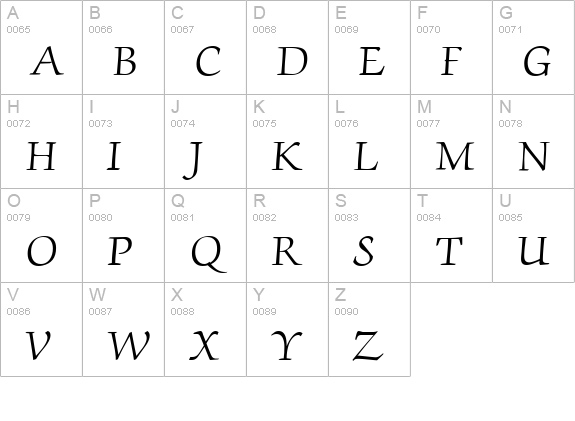
ZabriskieScript-Regular Font Details
ZabriskieScript-Regular is the standard, neutral variant in the ZabriskieScript typeface family \xE2\x80\x94 well suited to general body text, paragraphs, and standard typographic work.
ZabriskieScript-Regular font is a beautifully crafted typeface that exudes elegance and sophistication. With its flowing and graceful script style, this font is perfect for adding a touch of charm and personality to your designs. Whether you're working on invitations, greeting cards, or branding materials, ZabriskieScript-Regular font will surely make your text stand out. The best part? ZabriskieScript-Regular font is completely free for personal and commercial use. You can easily download this stunning font at FontsMarket.com and start using it in your projects right away. Don't miss out on the opportunity to elevate your designs with the timeless beauty of ZabriskieScript-Regular font.